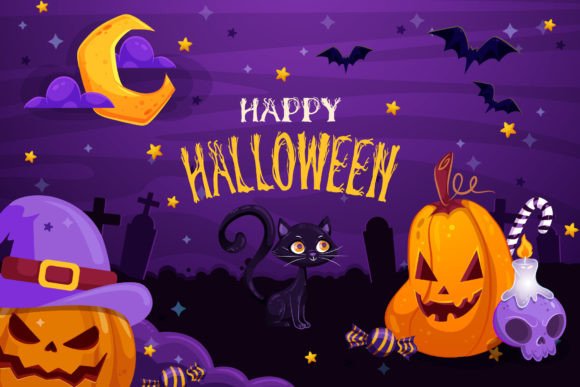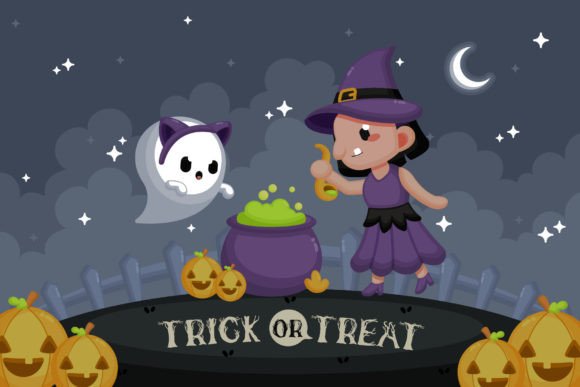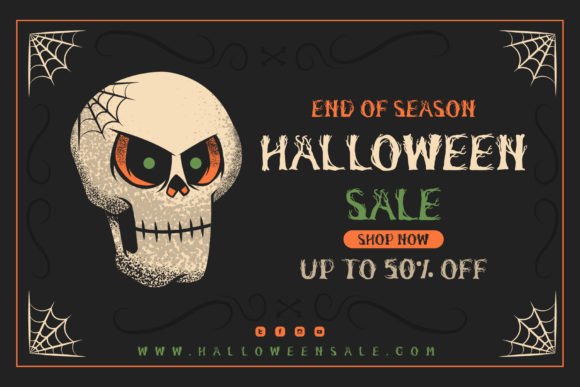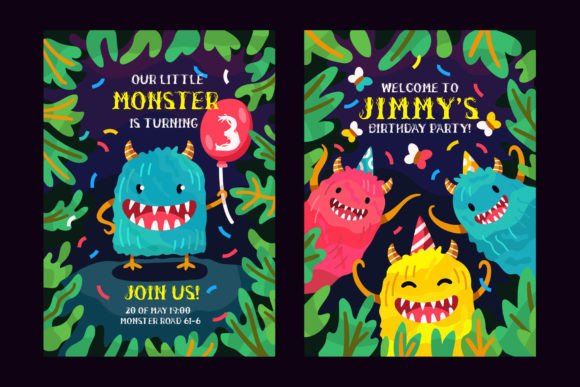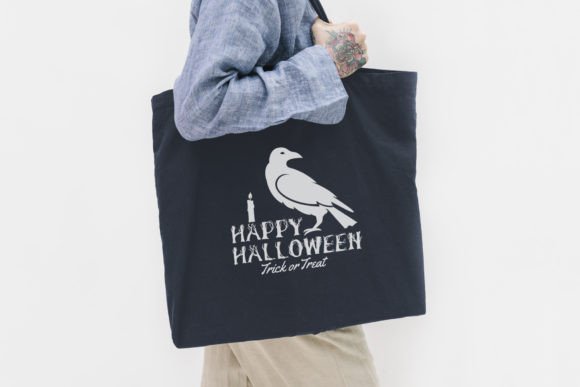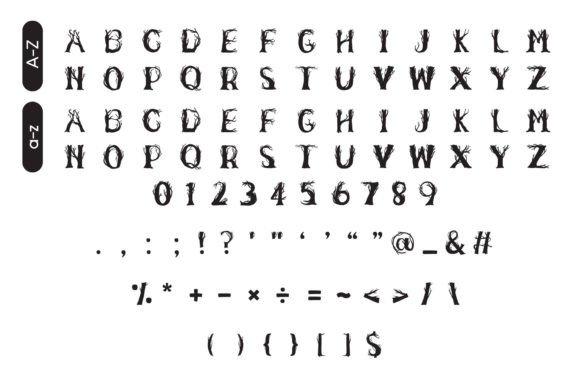
When Halloween Spirit Meets Typography
As the sun sets on a crisp autumn evening, the air is filled with the whispers of spooky tales and the rustling of leaves. It’s the perfect time to unleash your creativity and let the Halloween spirit guide your design. For designers, this means looking for fonts that capture the essence of the season, without being too scary or overwhelming.
Enter the Fox Terrible Font, a fun and playful decorative font that embodies the spirit of Halloween. With its unique design and versatility, this font is perfect for a variety of projects, from children’s themes to spooky logos. Whether you’re designing a T-shirt, a flyer, or a website header, the Fox Terrible Font is sure to add a touch of whimsy and personality to your work.
Fox Terrible Font Key Features
- Font Family: Fox Terrible Font is a sans-serif font designed to evoke a sense of playfulness and energy.
- Unique Characteristics: Fox Terrible Font features a unique blend of geometric and organic elements, with a distinctive ‘terrible’ twist on traditional sans-serif typography.
Review of Fox Terrible Font
As a designer, I was intrigued by the Fox Terrible Font, and I must say it’s a unique find. ✨ The font’s distressed, vintage vibe immediately caught my attention, and I appreciate the effort put into creating a truly one-of-a-kind typeface. The fox-themed icon is a nice touch, adding a playful element to the design.
The Fox Terrible Font performs well in body text, displaying a clear and readable texture. ✨ However, it may not be the best choice for headings or titles, as the distressed look can sometimes make it hard to distinguish between different levels of text.
- Unique, distressed design
- Vintage, retro aesthetic
- Includes fox-themed icon
- Perform well in body text
- May not be suitable for headings or titles
Overall, I think the Fox Terrible Font is a great addition to any designer’s toolkit, especially for projects that require a vintage or distressed look. However, it’s essential to be aware of its limitations and use it judiciously. ⚠️ With some careful consideration, this font can help elevate your designs to the next level.
Getting the Most Out of “Fox Terrible Font”
To get the most out of “Fox Terrible Font”, experiment with different font sizes, colors, and styles to create a unique and eye-catching design. Use the font in combination with other design elements, such as images and graphics, to create a visually appealing layout.
“Fox Terrible Font” is commonly used in creative projects, such as graphic design, digital art, and typography. It can also be used in marketing materials, such as brochures and flyers, to add a touch of whimsy and personality.